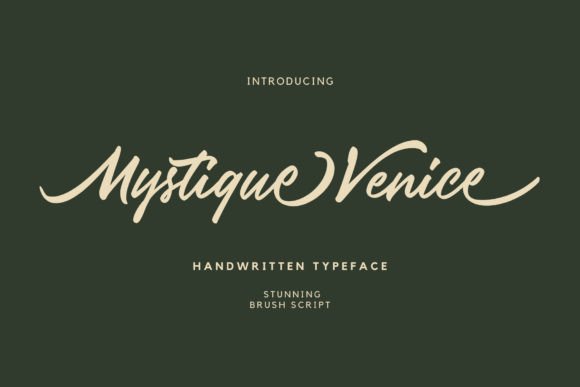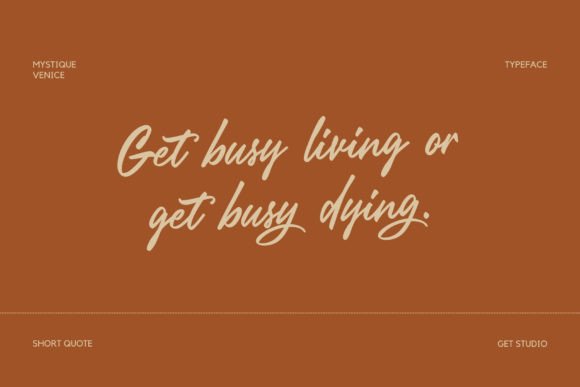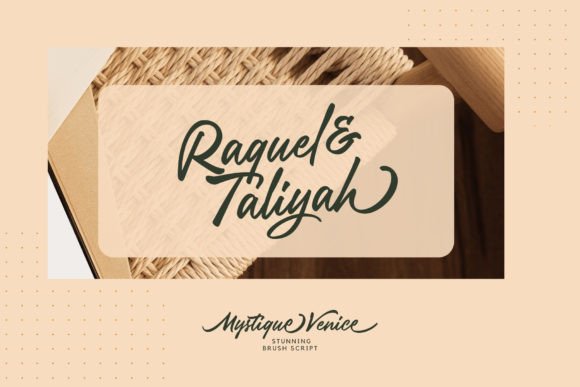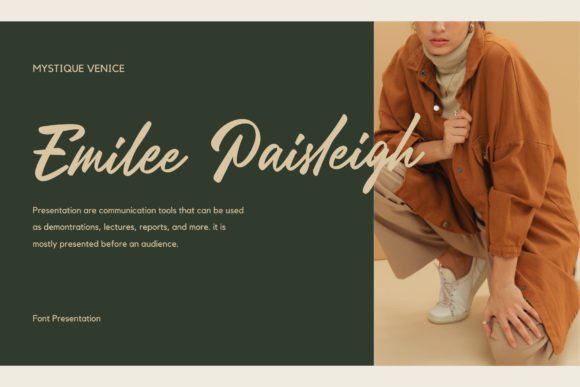
Mystique Venice Font: Elegant Handwritten Script for Branding & DIY
About the Mystique Venice Font
Add a touch of class to your work with the Mystique Venice Font, a truly exceptional typeface. Mystique Venice is a captivating brush script font designed to infuse your projects with an air of elegance and charm. With a distinctive handwriting style, each character exudes a sense of fluidity and spontaneity, adding a personal touch to your designs.
The font boasts Opentype features, allowing for dynamic ligatures and alternate characters that enhance its versatility and create a natural, organic flow.
Mystique Venice thrives in applications requiring a touch of refined elegance, such as wedding invitations, luxury branding, or short, impactful headlines. Its fluid forms work beautifully for logotypes and short text blocks on packaging or stationery. However, avoid using it for body text or lengthy paragraphs; its cursive nature reduces readability at smaller sizes.
The font’s personality is sophisticated yet approachable. Its inherent charm makes it ideal for brands aiming for a luxurious, feminine, or romantic feel. Pair it with a clean sans-serif like Lato for a modern contrast, or a classic serif like Garamond for a more traditional look. A geometric sans-serif such as Futura could also create a striking juxtaposition.
For a more playful feel, consider pairing it with a handwritten sans-serif font, balancing the formal script with a touch of casual energy. Avoid pairing it with overly decorative or heavily stylized fonts, which would clash with its inherent grace.
Mystique Venice Font Usage Examples
Mystique Venice Font Example